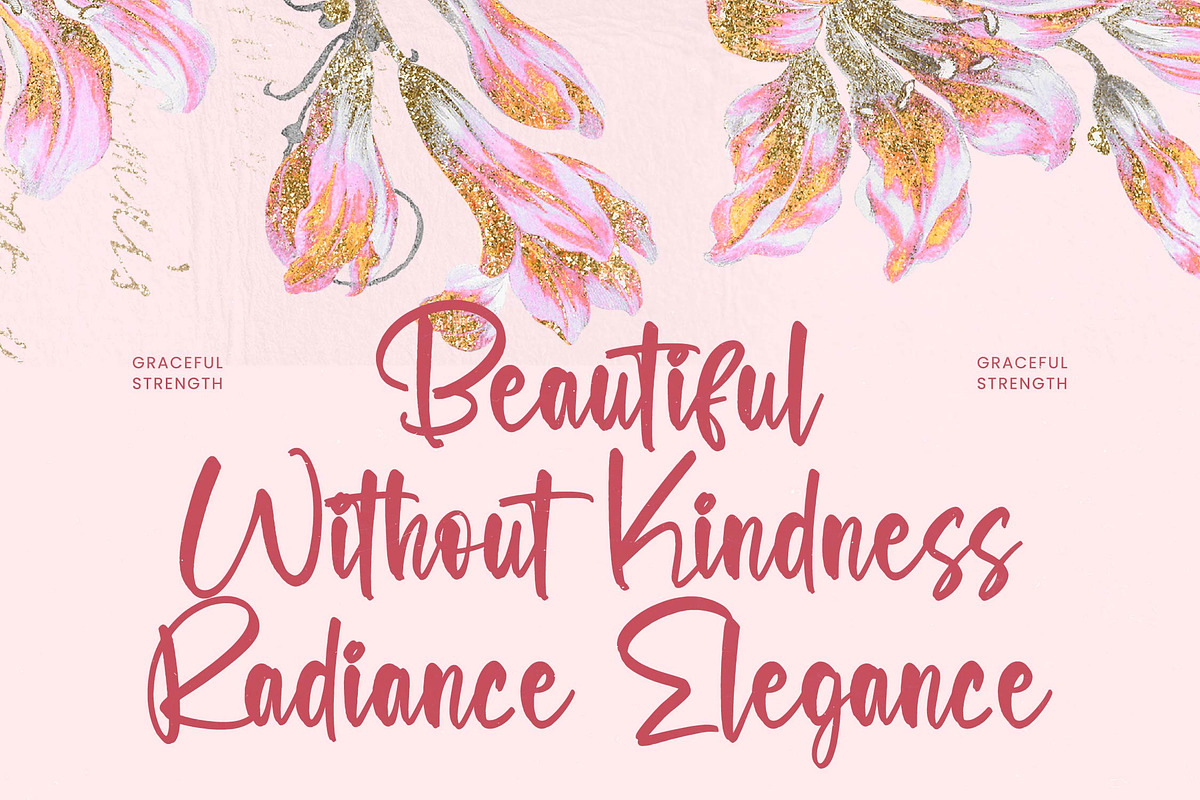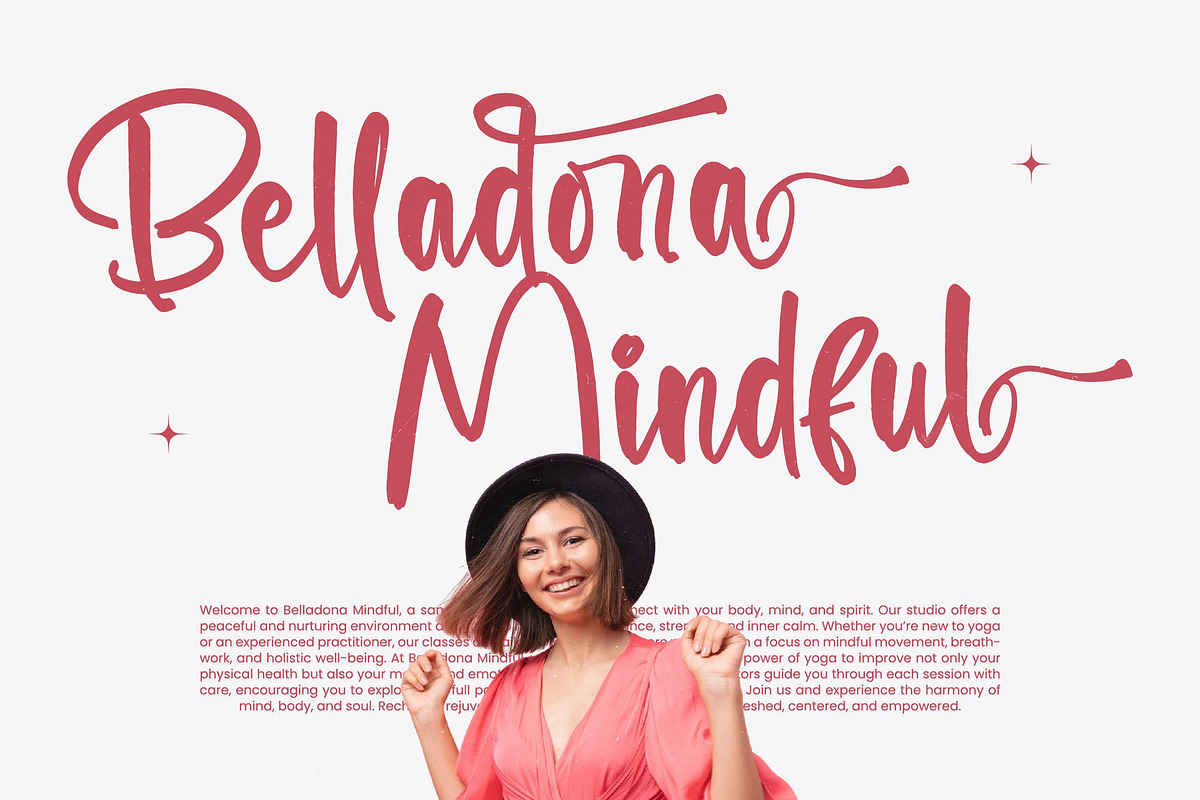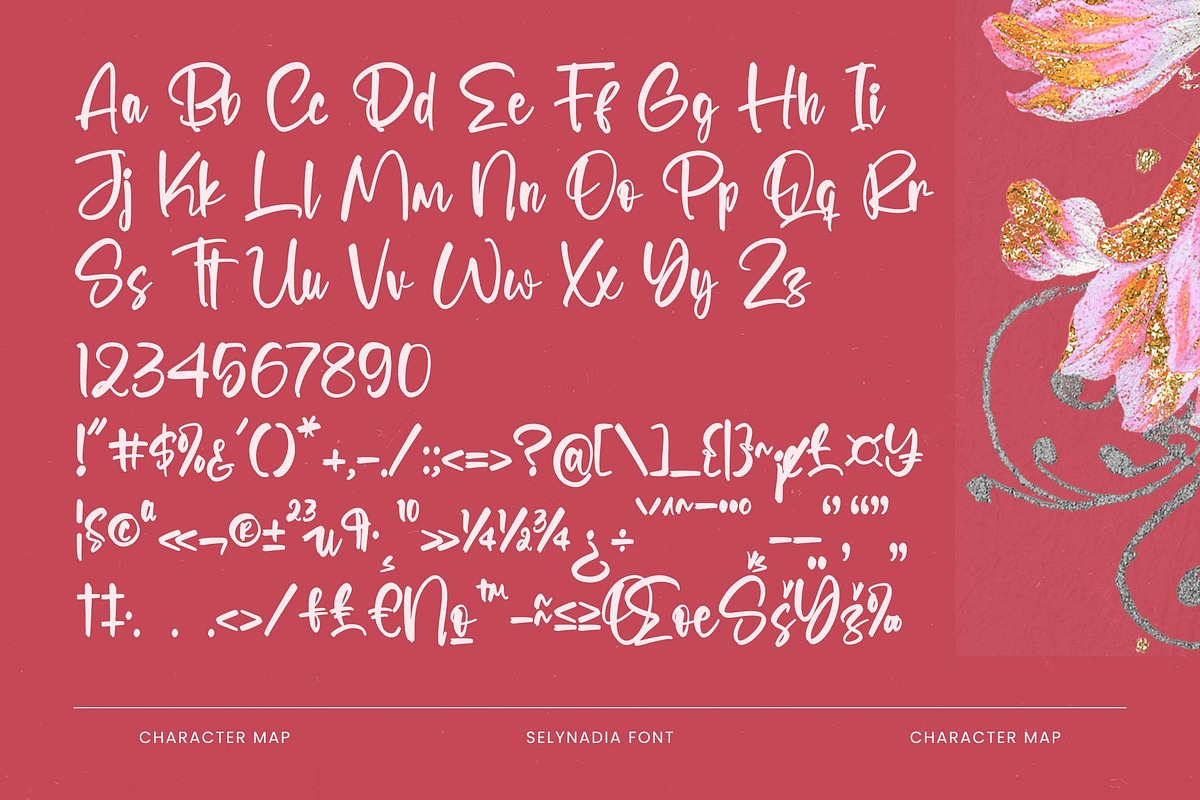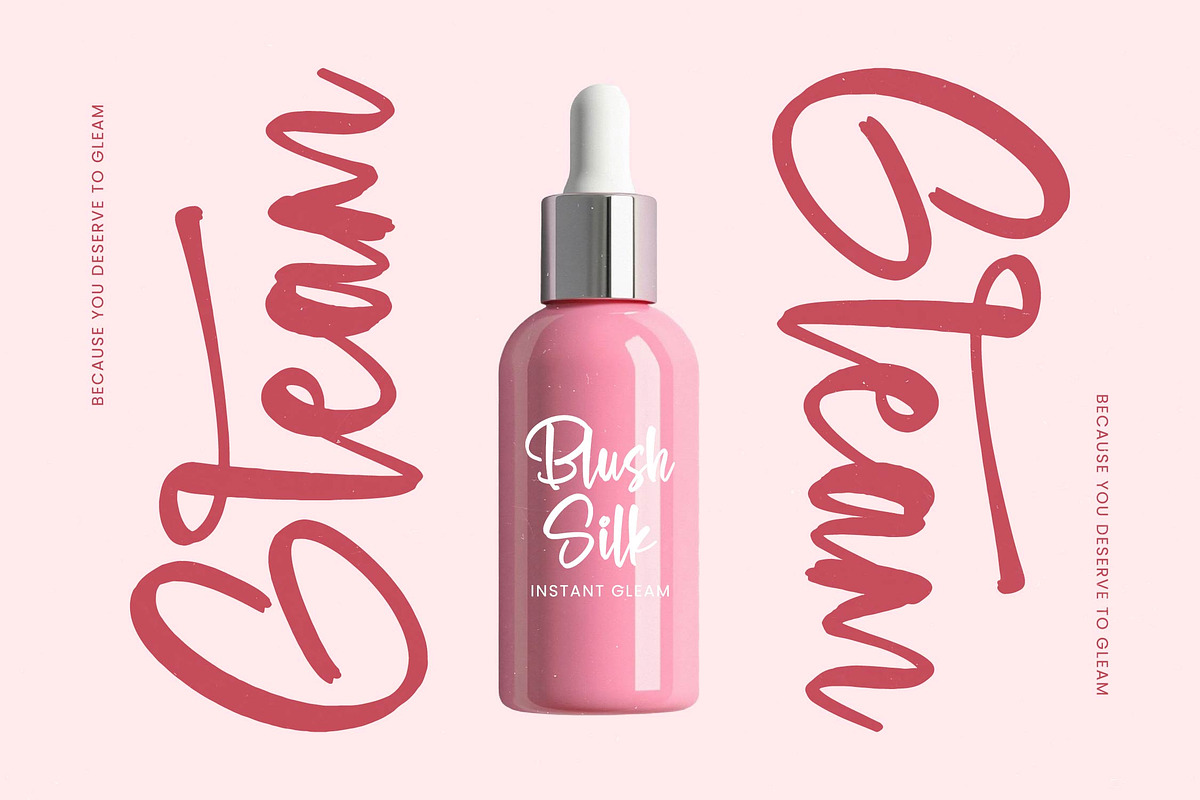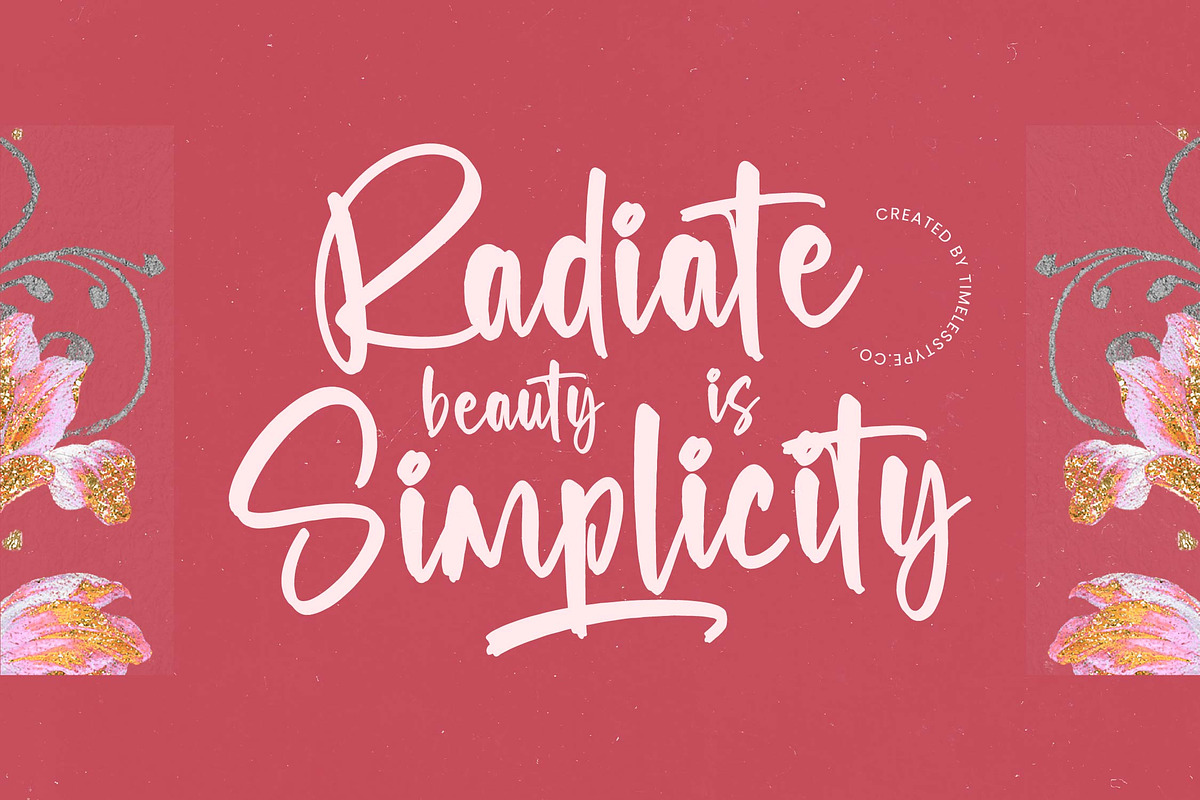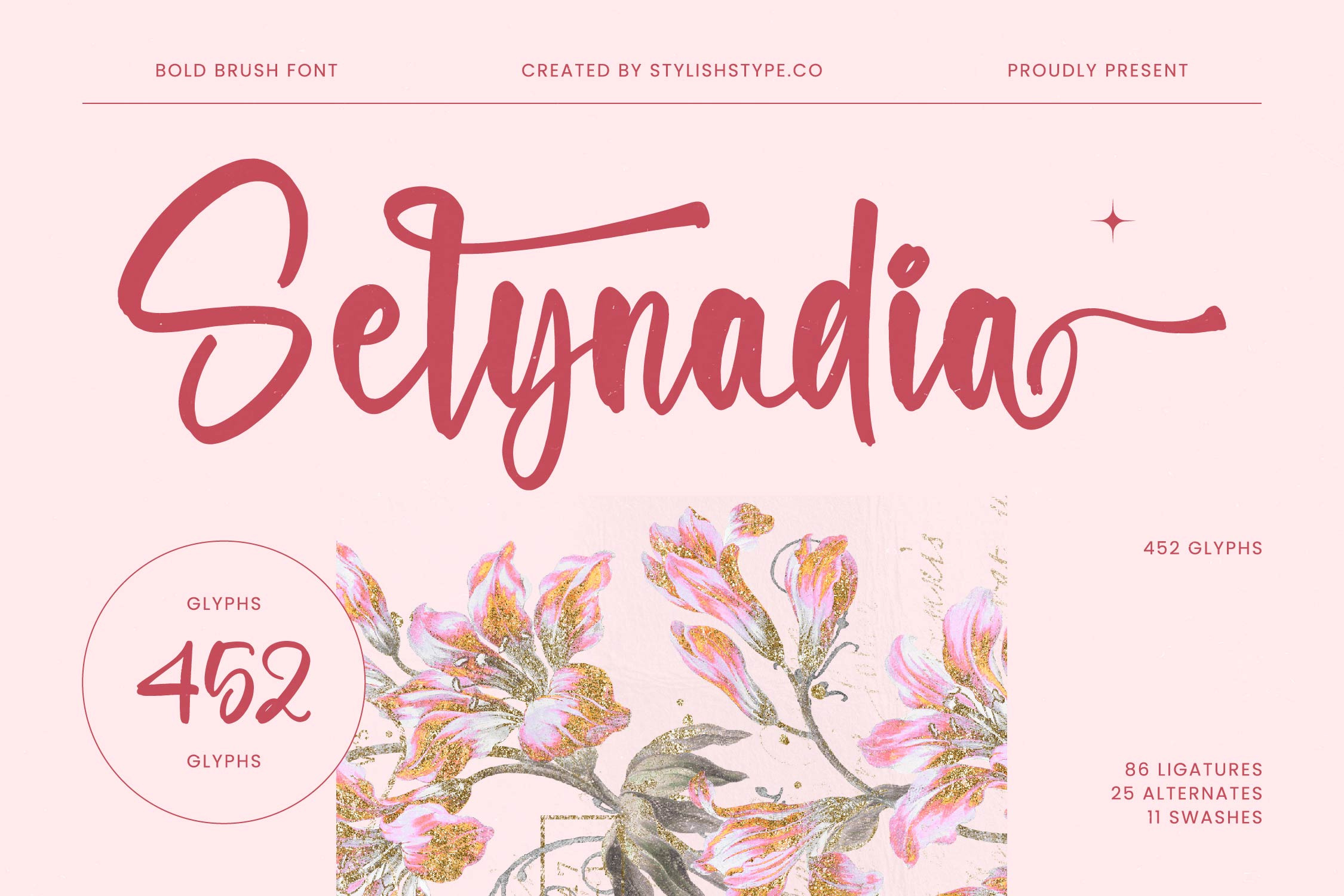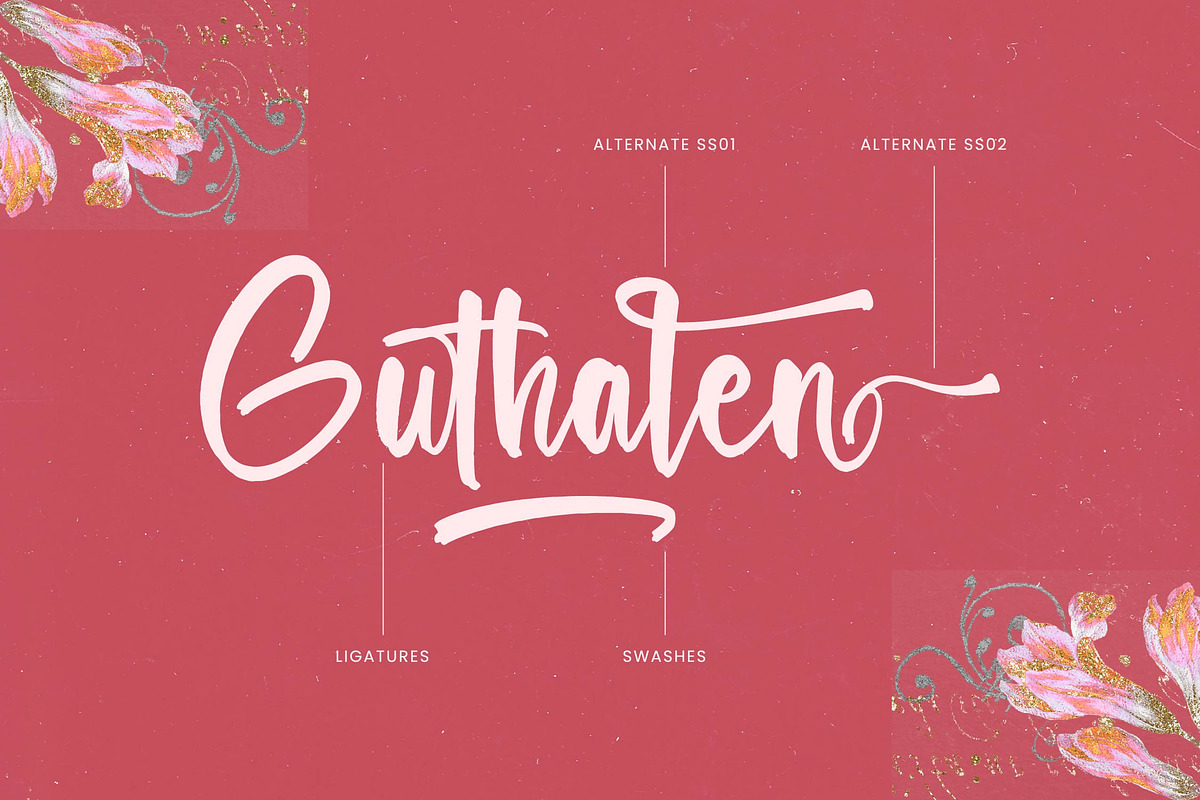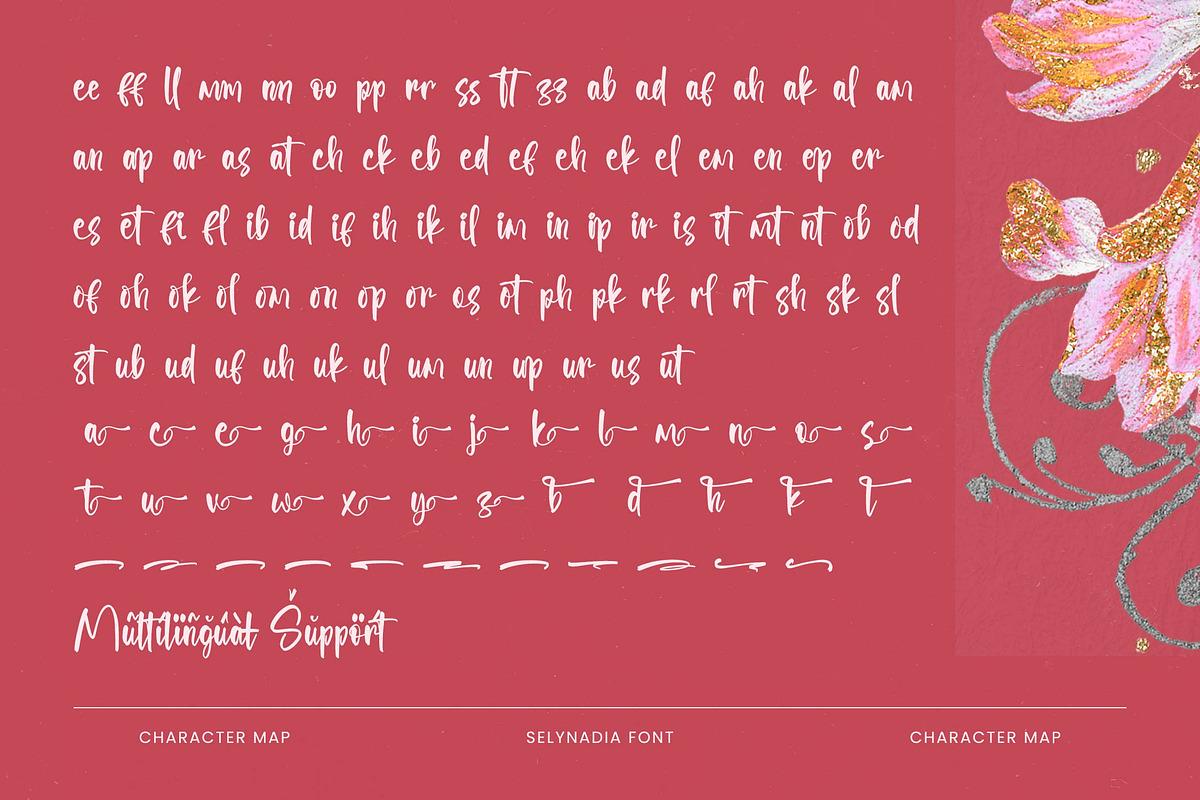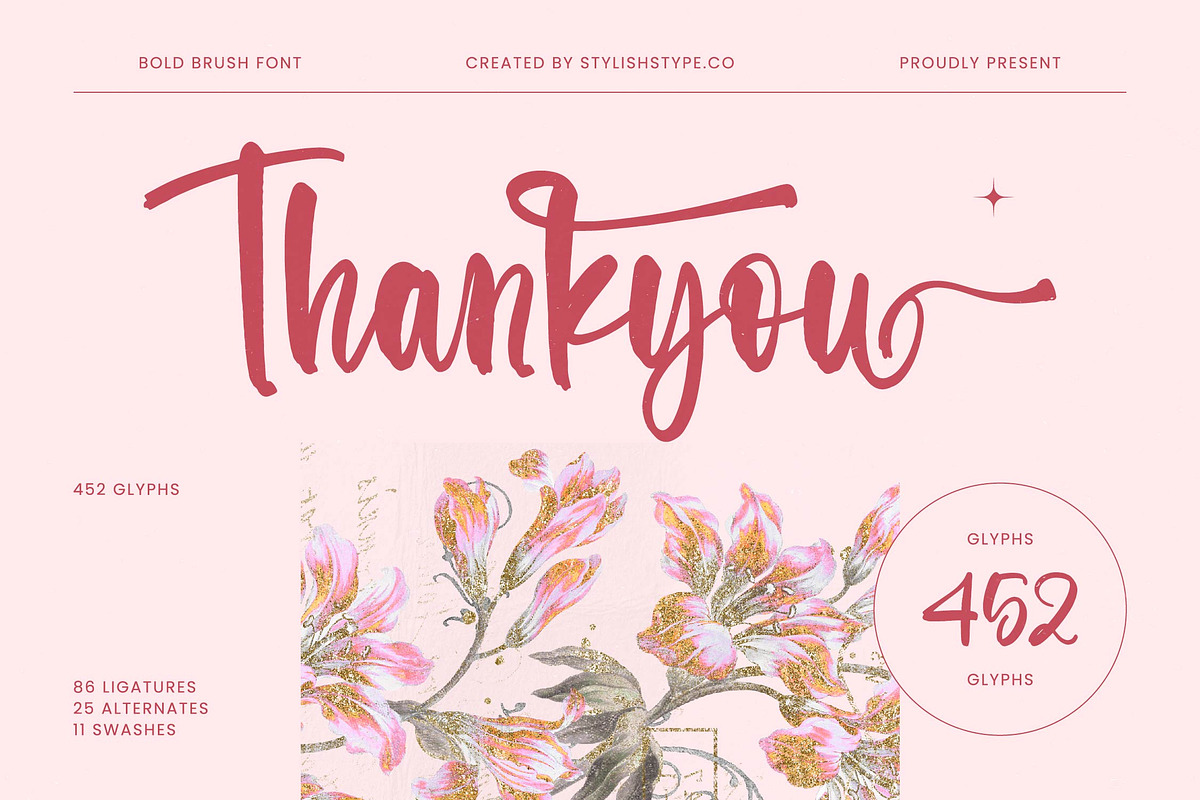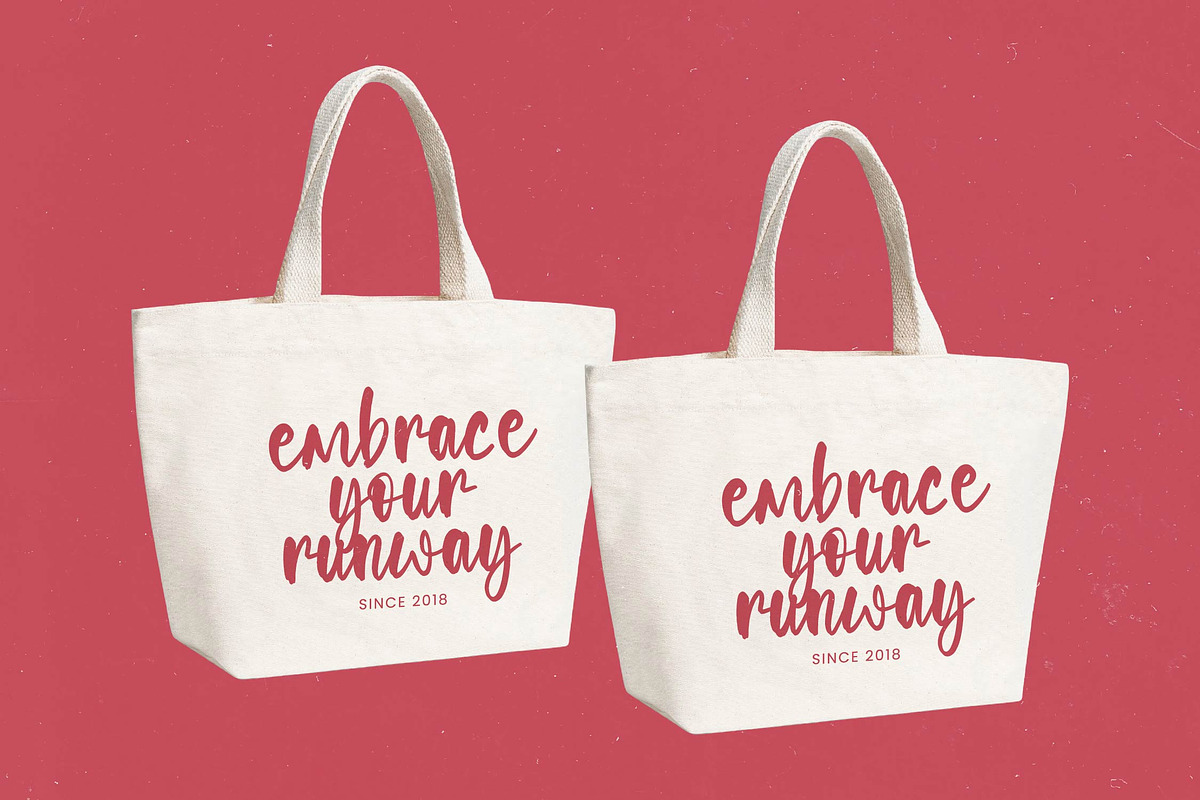
Selynadia Bold Brush Font
Selynadia - Bold Brush Font , from Stylishtype.Co , Suitable for any projects such as: logos, branding projects, homeware designs, product packaging, mugs, quotes, posters, shopping bags, t-shirts, book covers, name card, invitation cards, greeting cards, label, photography, watermark, special events, and all your other luxury and beautiful projects that need a Luxury Script taste.
- 86 Ligature 25 Alternates & 11 Swashes